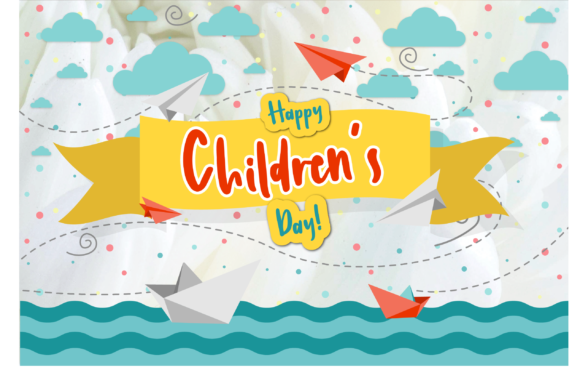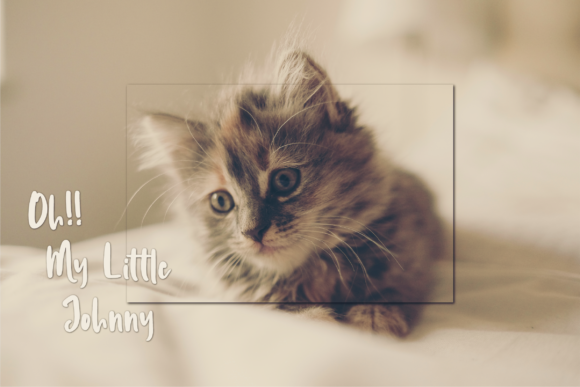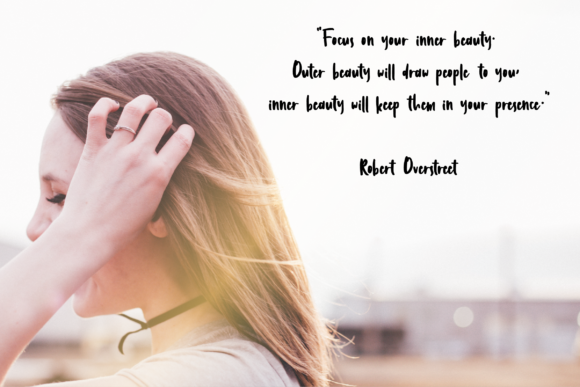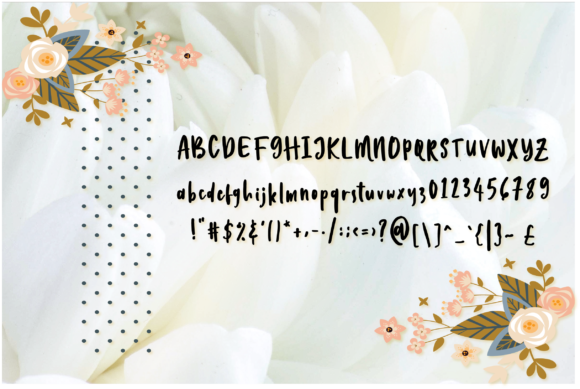
The Sweet Spot: Discovering the Charm of Black Love Font
I’ll never forget the time I was working on a project for a client’s anniversary card. I had all the design elements in place – the beautiful floral pattern, the heartfelt message, and the perfect color palette. But something was missing. The font I had chosen just didn’t feel right. It was too formal, too stiff, and it completely threw off the vibe I was going for. That’s when I stumbled upon Black Love font, and it was like a breath of fresh air. In this article, I’ll share my experience with this lovely script font, its features, and how you can make the most of it in your designs.
A Personal Review: What I Love About Black Love Font
Black Love font has quickly become one of my go-to fonts for projects that require a touch of playfulness and sweetness. Here are a few things that I absolutely love about it:
• ✨ Natural feel: Black Love has a very organic, handwritten feel that makes it perfect for greeting cards, stationery, and other personal projects.
• ✅ Versatility: Despite its playful nature, Black Love can be used for a wide range of projects, from formal to informal, and it always seems to fit right in.
• 💕 Emotional connection: There’s something about the flowy script of Black Love that feels very emotive and personal, making it ideal for projects that require a heartfelt touch.
While Black Love font is incredibly charming, it’s not without its quirks. Here are a few things to keep in mind:
• 🤔 Legibility at small sizes: Like many script fonts, Black Love can get a bit tricky to read at very small sizes. It’s best used at larger sizes where its beauty can shine.
• ⚠️ Overuse of swashes: While the swashes and flourishes in Black Love are gorgeous, using too many of them can make your text look cluttered. Use them sparingly for the best effect.
4. Experiment with the font’s OpenType features, such as swashes and stylistic alternates, to add personality to your text.
Exploring Alternatives: Similar Fonts to Black Love
If you’re looking for more options or want to experiment with different styles, here are a few fonts that share a similar vibe with Black Love:
• Lobster – A classic, elegant script font with a luxurious feel. Perfect for formal invitations and high-end branding.
• Pacifico – A beautiful, modern script font with a relaxed, personal feel. Great for creative projects and personal branding.
• Great Vibes – A fun, adventurous script font that’s perfect for projects that need a playful touch.
• Alex Brush – A lovely, hand-painted script font with a very artistic and whimsical feel. Ideal for creative and artistic projects.
The Story Behind Black Love Font
While the origins of Black Love font might not be well-documented, it’s clear that it was designed with love and care. The creator aimed to craft a font that feels both personal and versatile, suitable for a wide range of creative projects. Whether it’s used for a wedding invitation, a heartfelt letter, or a fun DIY project, Black Love is sure to bring a touch of warmth and personality.
Is Black Love font suitable for body text? While Black Love is beautiful, it’s best used for headings or short paragraphs due to its script nature and potential legibility issues at smaller sizes.
Does Black Love support multiple languages? Black Love likely supports a range of languages, but it’s always best to check the specific character set included with the font.
Black Love font is a delightful addition to any designer’s toolkit, offering a unique blend of playfulness and elegance. Its natural feel and versatility make it perfect for a wide range of projects, from greeting cards to professional branding. With its OpenType features and beautiful swashes, Black Love can add a personal touch to your designs that stands out. Whether you’re a seasoned designer or a crafting hobbyist, Black Love is sure to inspire your creativity.